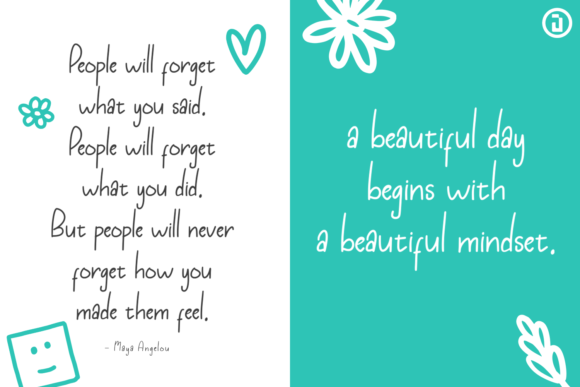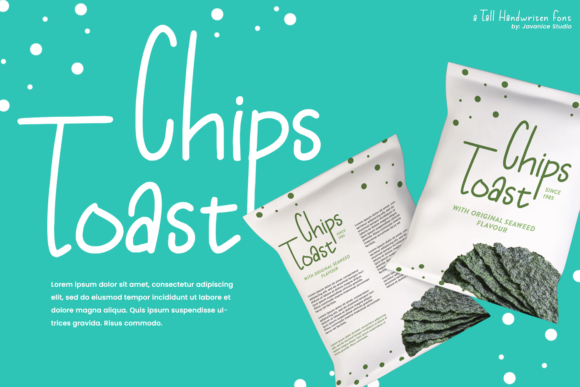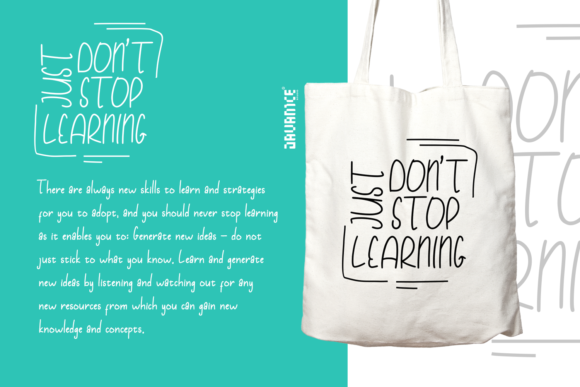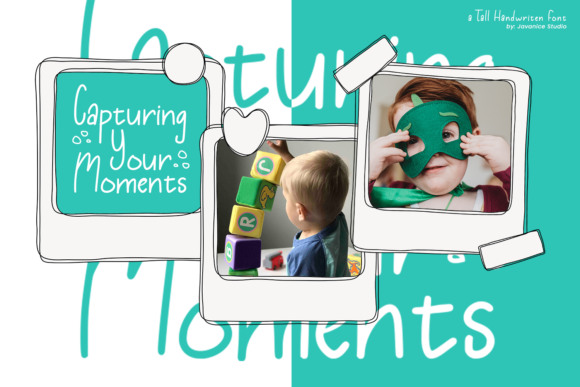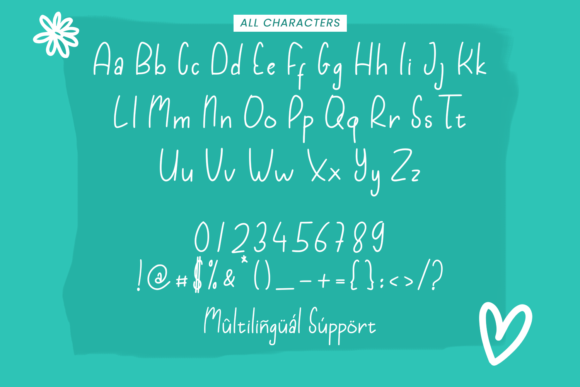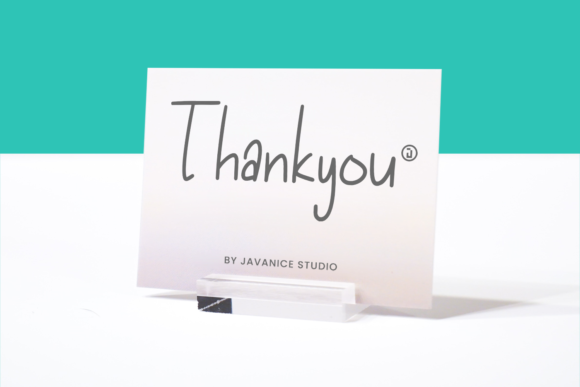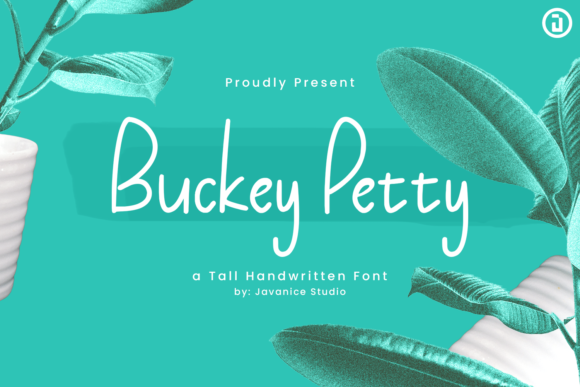
Discover the Charm of Buckey Petty Font: A Cute and Simple Handwritten Delight
Are you a designer or crafter on the hunt for a font that adds a touch of personality to your projects? Look no further than Buckey Petty, a delightful handwritten font that’s as cute as it is simple. With its beautiful and balanced character, Buckey Petty is the perfect addition to your design pool, offering a fresh and unique aesthetic that’s sure to captivate your audience.
Handwritten fonts have a way of bringing a personal touch to any design project. They’re often described as warm, inviting, and authentic, making them a popular choice for crafts, branding, and marketing materials. Buckey Petty is no exception, boasting a charming and whimsical feel that’s perfect for designers and crafters looking to add a dash of personality to their work.
What Makes Buckey Petty Special?
So, what sets Buckey Petty apart from other handwritten fonts? For starters, its simplicity is one of its greatest strengths. Unlike some fonts that can be overly ornate or complicated, Buckey Petty strikes the perfect balance between elegance and ease of use. Its characters are beautifully formed, with a clear and consistent style that makes it a joy to work with.
Another advantage of Buckey Petty is its versatility. Whether you’re designing a logo, crafting a social media graphic, or creating a custom invitation, this font adapts seamlessly to any design project. Its balanced character ensures that it looks great in both large and small sizes, making it an excellent choice for a wide range of applications.
Design Possibilities with Buckey Petty
The design possibilities with Buckey Petty are endless! Here are a few ideas to get you started:
- Branding and Logo Design: Use Buckey Petty to create a custom logo or brand identity that’s both modern and memorable.
- Social Media Graphics: Add a personal touch to your social media posts and stories with custom graphics featuring Buckey Petty.
- Invitations and Stationery: Create beautiful, one-of-a-kind invitations and stationery that showcase your personality and style.
- Crafting and DIY Projects: Use Buckey Petty to add a decorative touch to your crafting and DIY projects, such as signs, banners, and more.
Tips for Using Buckey Petty Effectively
To get the most out of Buckey Petty, here are a few tips to keep in mind:
- Pair it with Other Fonts: Experiment with pairing Buckey Petty with other fonts to create a unique and visually appealing contrast.
- Play with Size and Color: Don’t be afraid to experiment with different sizes and colors to add depth and interest to your design.
- Use it Consistently: Use Buckey Petty consistently throughout your design project to create a cohesive and professional look.
In conclusion, Buckey Petty is a charming and versatile handwritten font that’s perfect for designers and crafters looking to add a touch of personality to their projects. With its beautiful and balanced character, Buckey Petty is sure to become a go-to font in your design arsenal. So why not give it a try and see the difference it can make in your next design project?
Whether you’re a seasoned designer or a crafting enthusiast, Buckey Petty is an excellent choice for anyone looking to add a dash of whimsy and charm to their work. So go ahead, get creative, and see what amazing things you can create with Buckey Petty Font!